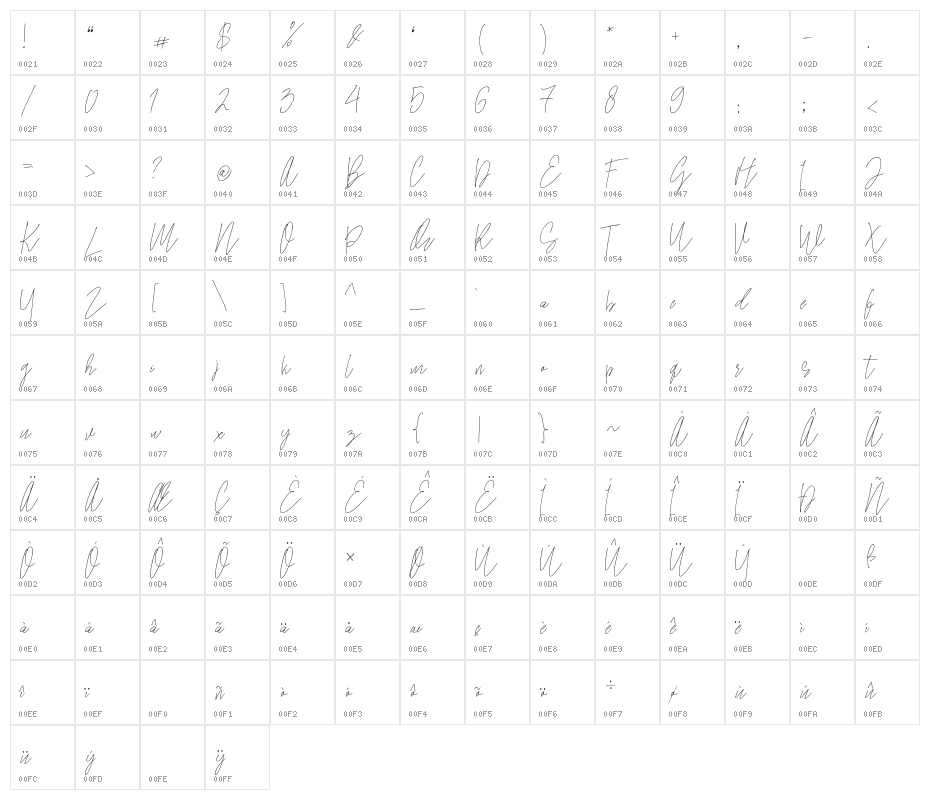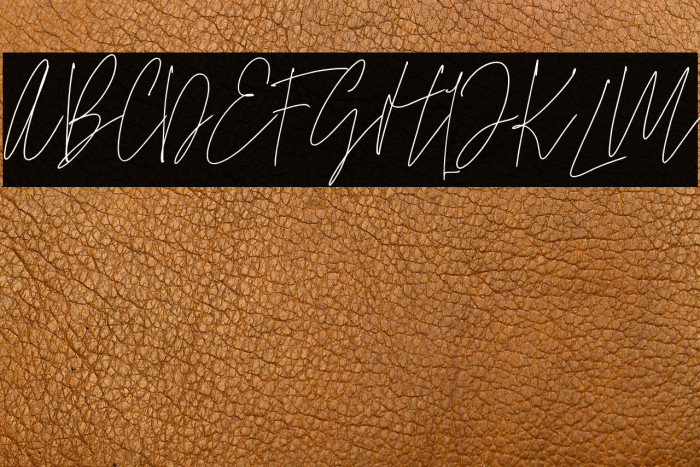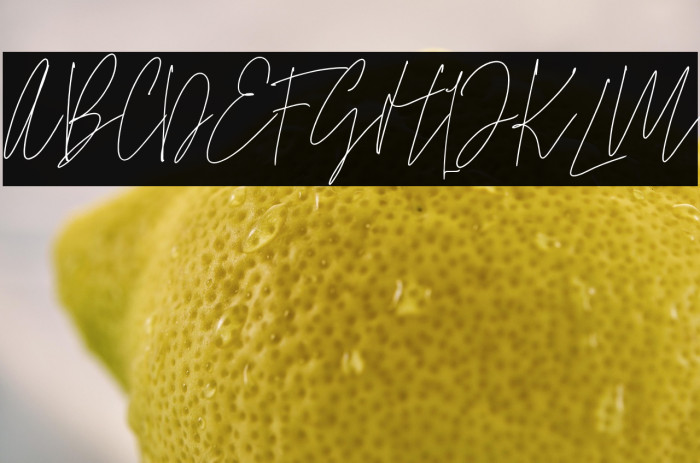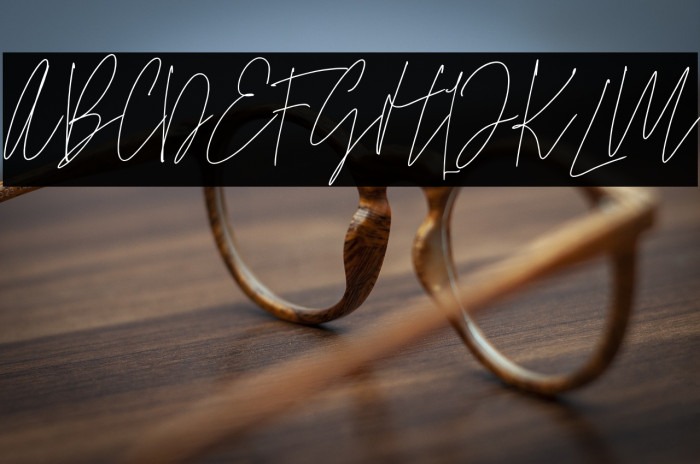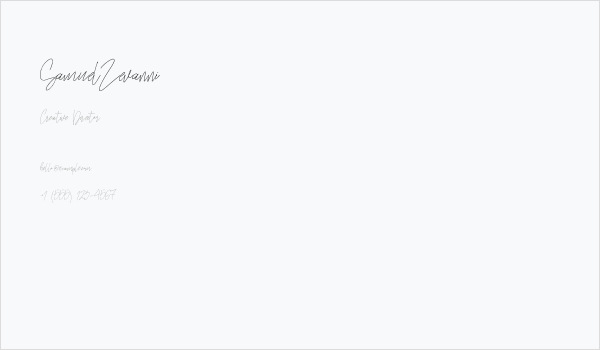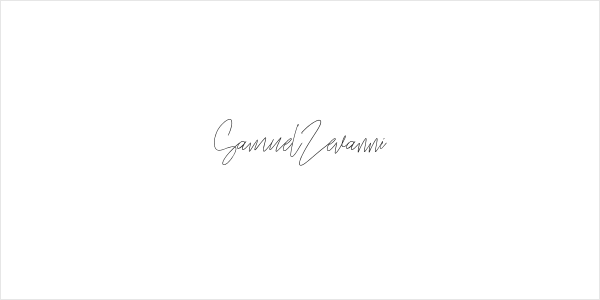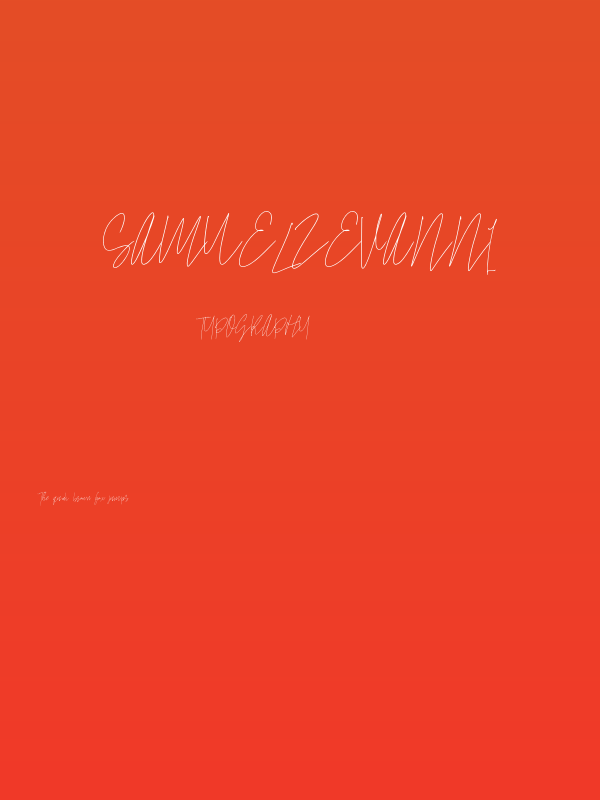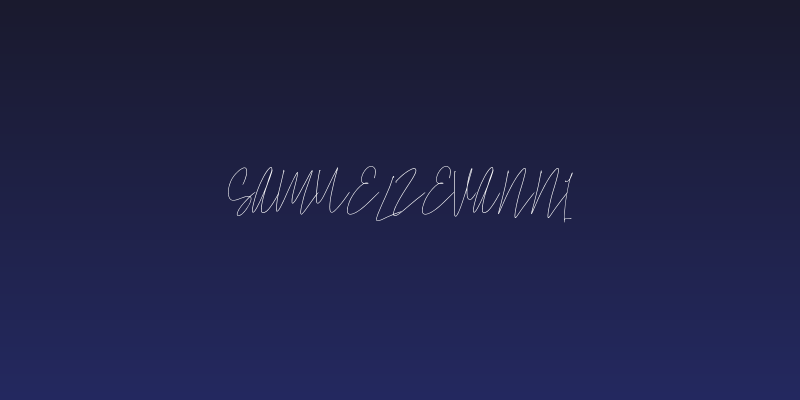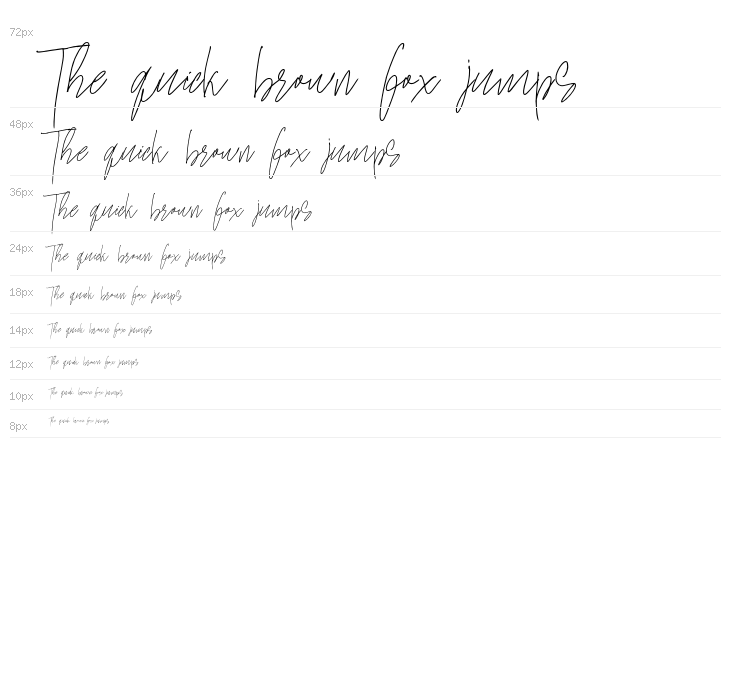
SamuelZevanni Font
SamuelZevanni Description
This font exudes a modern, handwritten style with a casual and flowing appearance. The letters are elegantly connected, mimicking natural handwriting with a slight slant to the right. The strokes are thin and consistent, providing a delicate and airy feel. The uppercase letters are tall and narrow, while the lowercase letters maintain a smooth and cohesive flow. The numerals and special characters are crafted with the same attention to detail, ensuring uniformity across the entire character set. This font is ideal for projects that require a personal touch, such as invitations, greeting cards, or branding materials.
| Use Case | Logos, Headlines, Personal projects |
| Proposed Projects | Ideal for invitations, greeting cards, branding, and personal projects. |